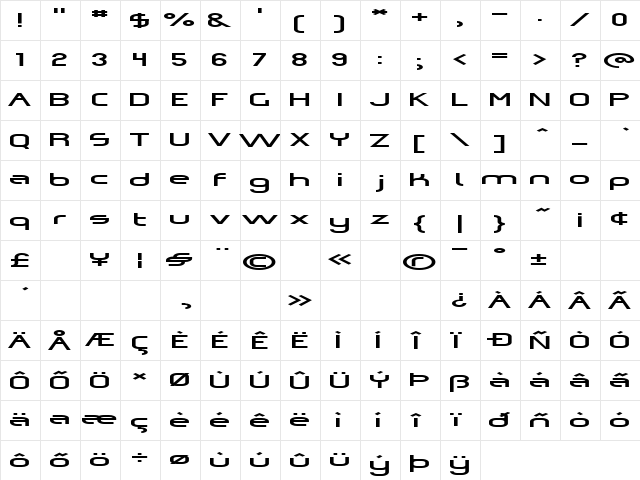
Omicron Zeta Pressed Regular
Design Context for Omicron Zeta Pressed Typeface
Omicron Zeta Pressed is a composed and adaptable typeface that performs quietly and consistently across a wide range of design contexts.